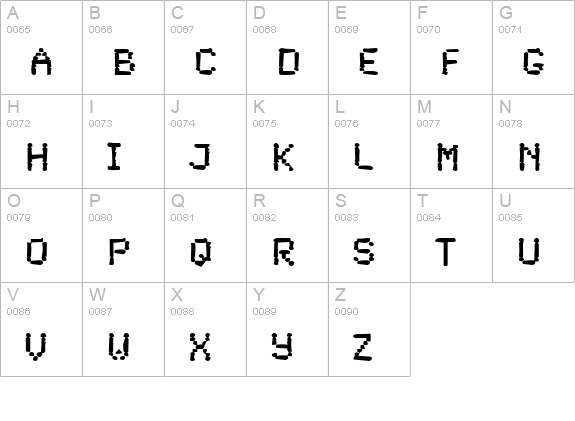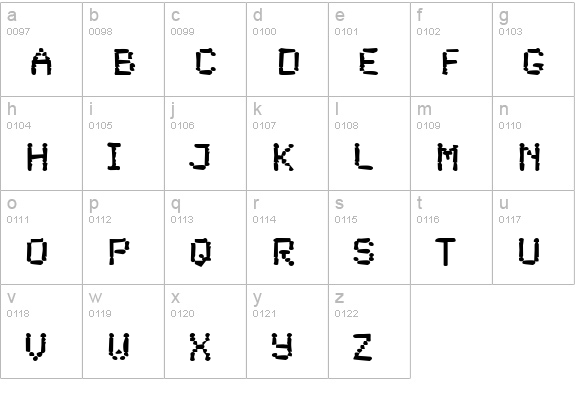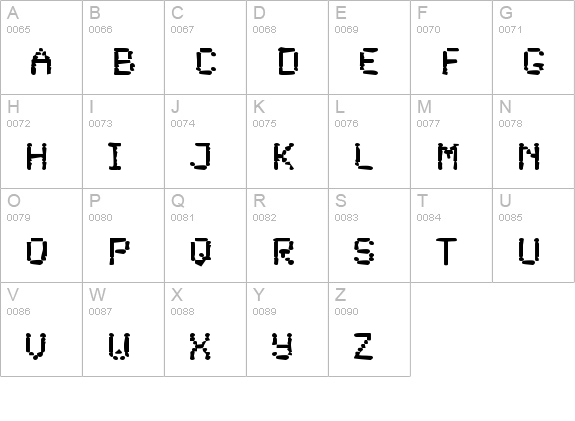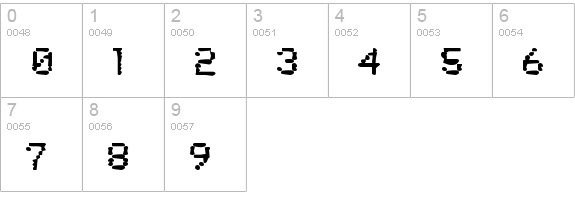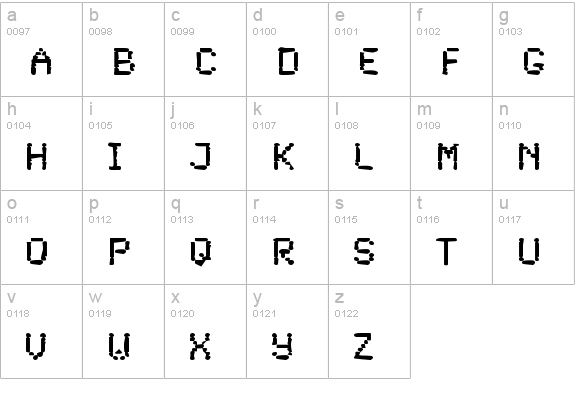
Dirty48-Bold is a strong, high-contrast variant in the Dirty48 typeface family \xE2\x80\x94 well suited to headlines, attention-grabbing titles, and strong calls-to-action.
Dirty48-Bold is a striking and edgy display font that exudes a raw and gritty aesthetic. Its bold and daring design makes it perfect for projects that require a strong and impactful typographic statement. This font is ideal for branding, posters, headlines, and any design that needs to stand out from the crowd. What sets Dirty48-Bold apart is its unique blend of ruggedness and modernity, creating a versatile typeface that can be used in a variety of creative applications. Its sharp edges and rough texture give it a sense of energy and dynamism, making it a great choice for projects that demand attention. Best of all, Dirty48-Bold is available for free download at FontsMarket.com. This means that you can easily access this powerful font and incorporate it into your designs without any cost. Don't miss out on the opportunity to add Dirty48-Bold to your font library and take your designs to the next level.